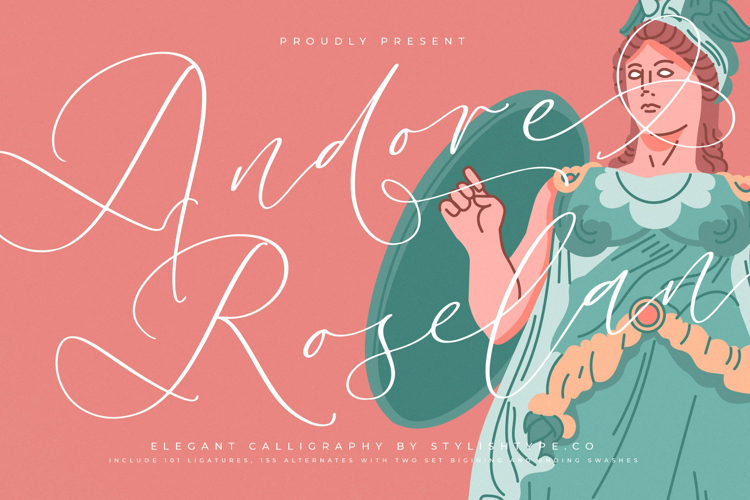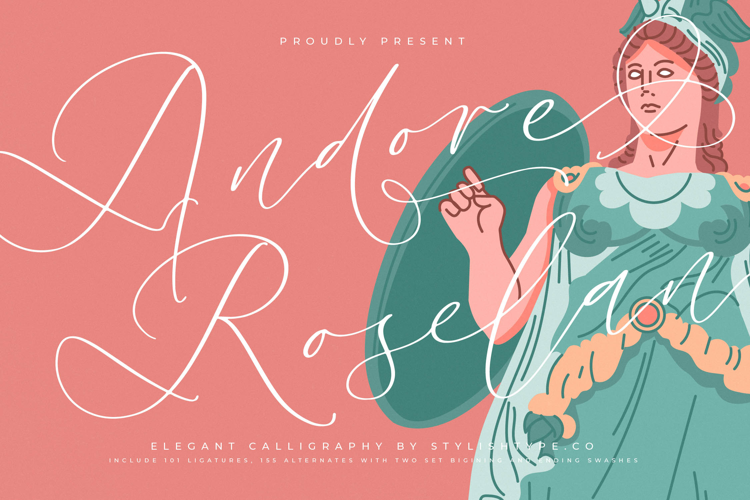
Andore Roselan - Elegant Calligraphy Script
Andore Roselan is an elegant calligraphy font designed to embody luxury, refinement, and timeless beauty. Its sweeping curves, delicate ligatures, and ornamental swashes make it perfect for projects that require sophistication and artistry. With 101 ligatures, 155 alternates, and two sets of beginning and ending swashes, this typeface gives designers endless creative freedom to produce unique and captivating lettering compositions.
This font excels in branding. Ideal for luxury logos, boutique shops, fashion labels, jewelry brands, and premium packaging, Andore Roselan communicates exclusivity and prestige. Its calligraphic elegance ensures that branding projects stand out with a signature of sophistication and memorability, making it a perfect fit for high-end markets.
In editorial and publishing, Andore Roselan adds refinement and romantic flair. Magazines, book covers, wedding programs, and lifestyle features benefit from its graceful strokes and harmonious flow. It creates editorial layouts that are both visually stunning and highly legible, giving text a sense of elegance and artistry.
For web typography, this elegant calligraphy font integrates seamlessly across blogs, websites, creative portfolios, and social media platforms. Its handwritten refinement ensures that digital media projects feel polished, stylish, and luxurious, helping brands and creators strengthen their online presence.
Andore Roselan is also a powerful choice in advertising and marketing. From posters, product promotions, campaigns, and business cards, its ornamental calligraphy captures attention and communicates exclusivity. It ensures advertising projects remain elegant, impactful, and artistically engaging.
This font is particularly well-suited for wedding and event stationery. With its sweeping swashes and refined alternates, it enhances invitations, greeting cards, signage, and keepsakes, making them feel timeless and romantic. It’s an excellent choice for wedding branding and high-end celebrations.